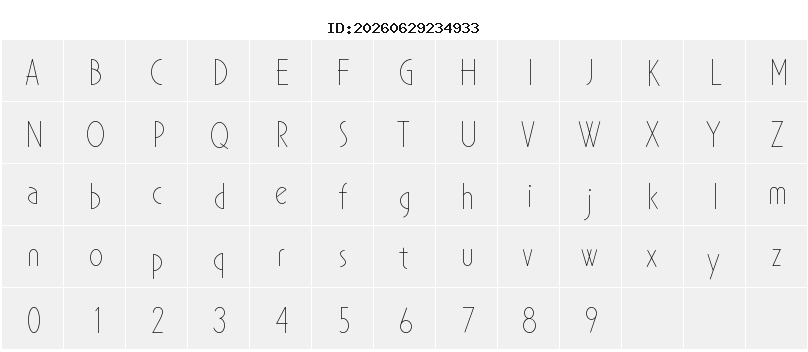
字体管家极细黑 Preview
• Font Name: 字体管家极细黑
• Font Style: 常规
• Font ID: 1.000;Aa;AaJiXihei;2015
• Full Font Name: 字体管家极细黑
• PostScript Name: AaJiXihei
• Character Count: 8433
• Manufacturer: 北京奇思众和科技有限公司
• Description: AaJiXihei is a fantastic font with excellent features designed for user interfaces and electronic communications.
About 字体管家极细黑.ttf
字体管家极细黑.ttf is a modern, elegant sans-serif font designed for ultimate readability and visual harmony. Perfect for branding, headlines, web design, and print materials.